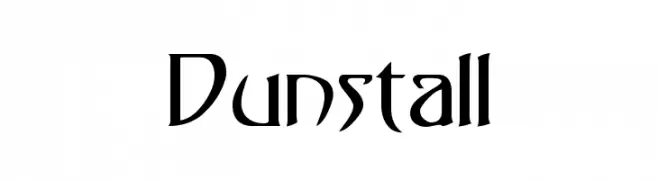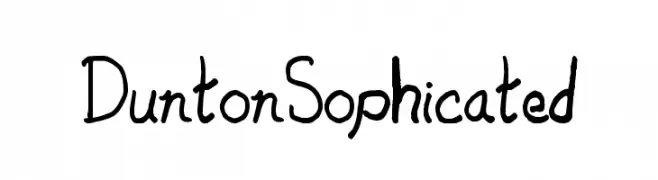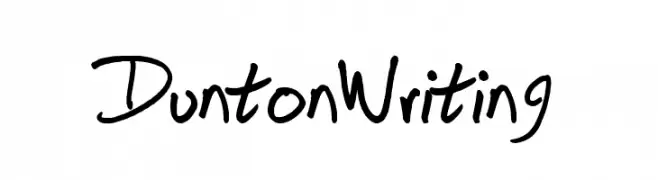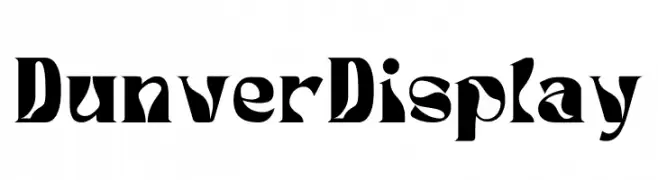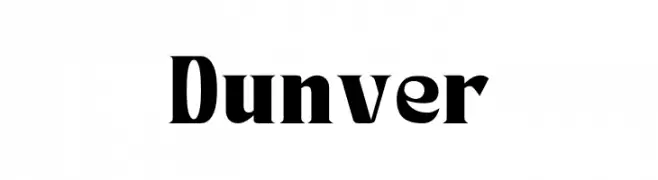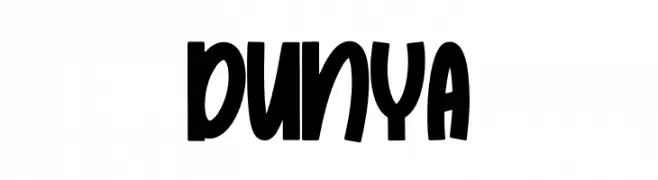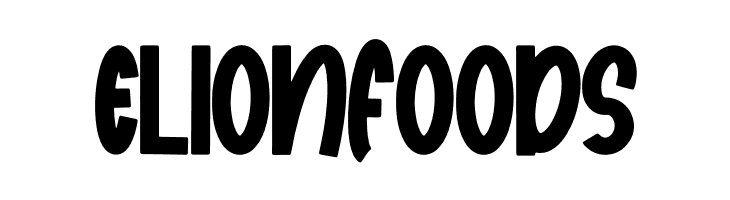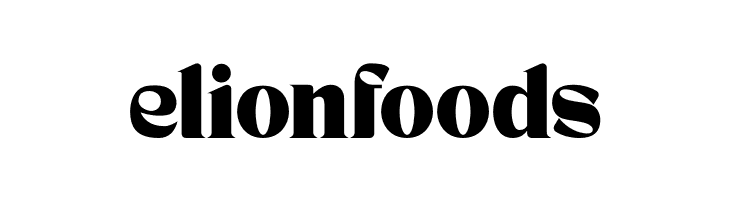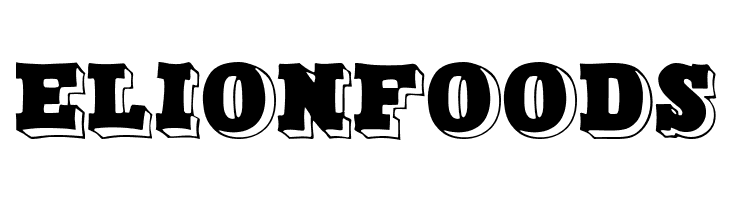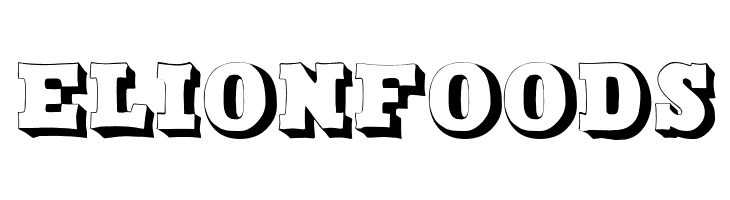
A bold, gothic-inspired font with sharp, angular edges and a modern twist.
A playful, hand-drawn font with a whimsical and artistic style.
A dynamic, expressive handwritten font with fluid strokes and bold characters.
A bold, high-contrast decorative font with unique curves and angles.
A bold, decorative font with sharp angles and smooth curves, ideal for striking designs.
A bold, playful font with rounded strokes and a modern, dynamic style.
A bold, rounded font with playful circular elements and a modern aesthetic.
A bold, 3D-effect font with thick, blocky letters and a strong visual presence.
A bold, three-dimensional font with a vintage shadow effect.